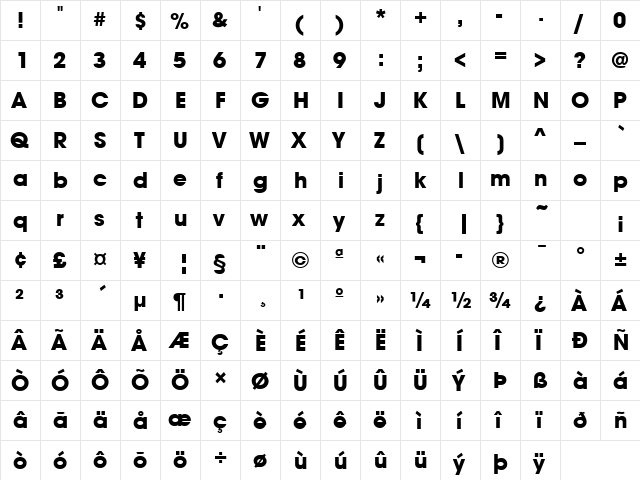
AvalonTwo Bold
Design Context for AvalonTwo Typeface
AvalonTwo takes a measured approach to typography — its balanced proportions and neutral character make it a reliable workhorse for both digital and print work. The heavy weight commands attention and anchors typographic hierarchies.
Pro Tip: Pair AvalonTwo with a font of contrasting weight or personality to build a more expressive typographic hierarchy.